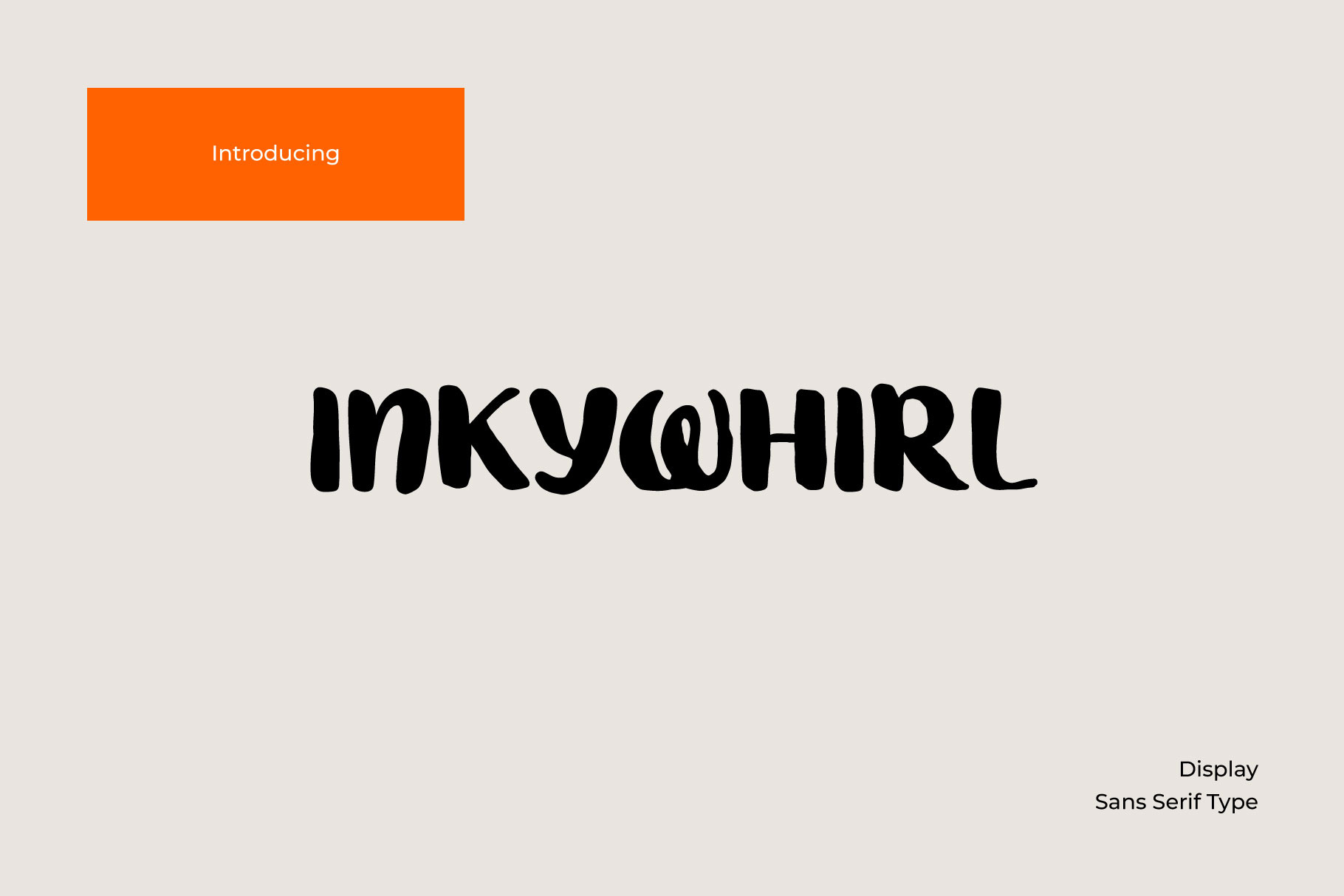
InkyWhirl Display Font
InkyWhirl is a new addition to the world of typography. This font is scribbled, friendly, and perfect for any kind of creative endeavor you may be using.
Contains all capital letters, numbers, and basic punctuation.